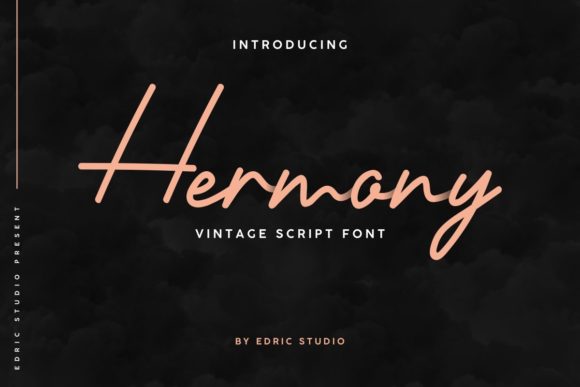
Experience the Timeless Elegance of Hermony Font: The Epitome of Grace and Beauty for Your Fashion Logo
Hermony Font, a breathtaking script font, emerges as the ultimate choice for fashionistas and designers seeking a touch of elegance and sophistication. With its delicate strokes and flowing curves, Hermony exudes a timeless charm that captivates the senses. Immerse yourself in the world of haute couture as Hermony gracefully adorns your fashion logo, elevating it to new heights of allure.
Crafted by the visionary EdricStudio, Hermony Font embodies the essence of femininity and grace. Its meticulously crafted characters dance across the screen, evoking a sense of luxury and refinement. Whether you're designing a logo for a high-end fashion boutique, an online clothing store, or a personal style blog, Hermony Font is the perfect muse to bring your creative vision to life.
Step into the spotlight and let Hermony Font command attention. Its remarkable adaptability makes it a versatile tool for a wide range of projects. Unleash your creativity and explore its potential in branding, packaging, social media graphics, and website design. Hermony Font seamlessly blends with various design aesthetics, from classic and timeless to modern and edgy.
As you delve into the world of Hermony Font, you'll discover a font that speaks to your soul. Its delicate curves and elegant flourishes create a visual symphony that resonates with the fashion-forward and those who appreciate the finer things in life. Embrace the allure of Hermony Font and let it elevate your designs to new heights of sophistication.
Don't settle for ordinary fonts that fade into the background. Choose Hermony Font and embark on a journey of creative expression. Allow its timeless beauty to captivate your audience and leave a lasting impression. Hermony Font is the key to unlocking your fashion logo's true potential.